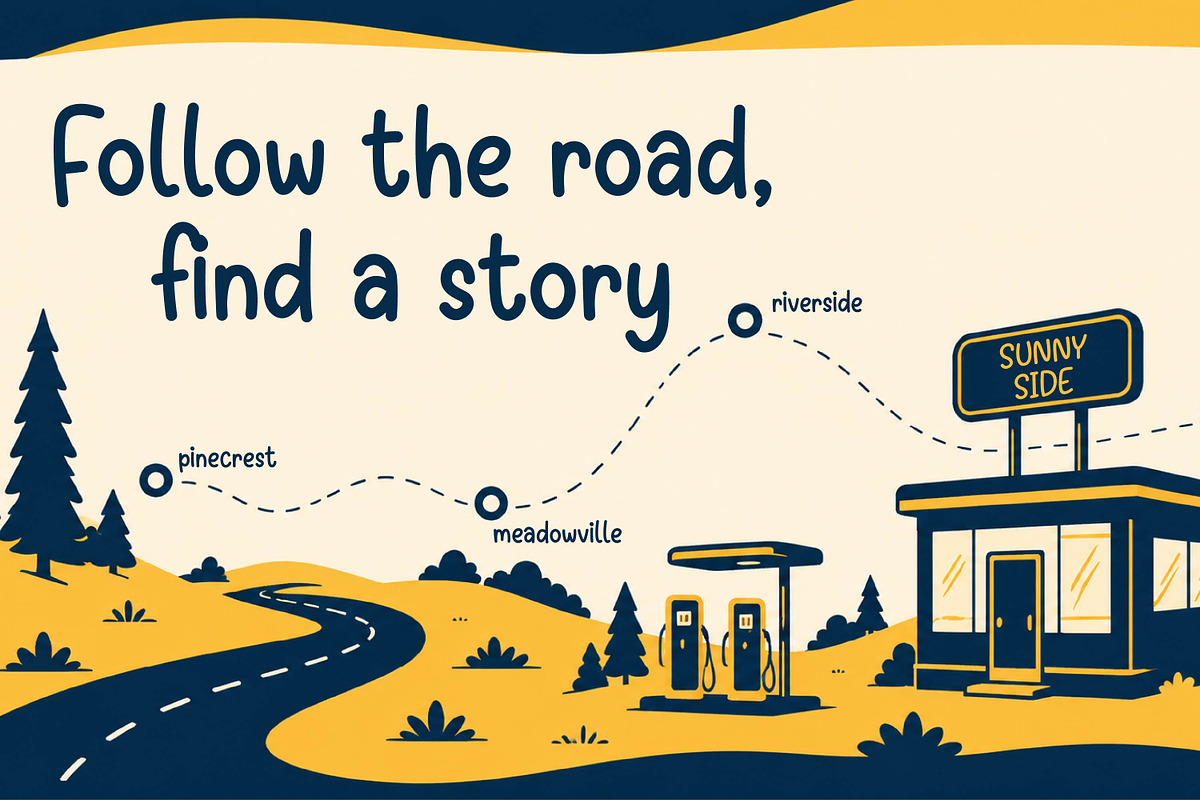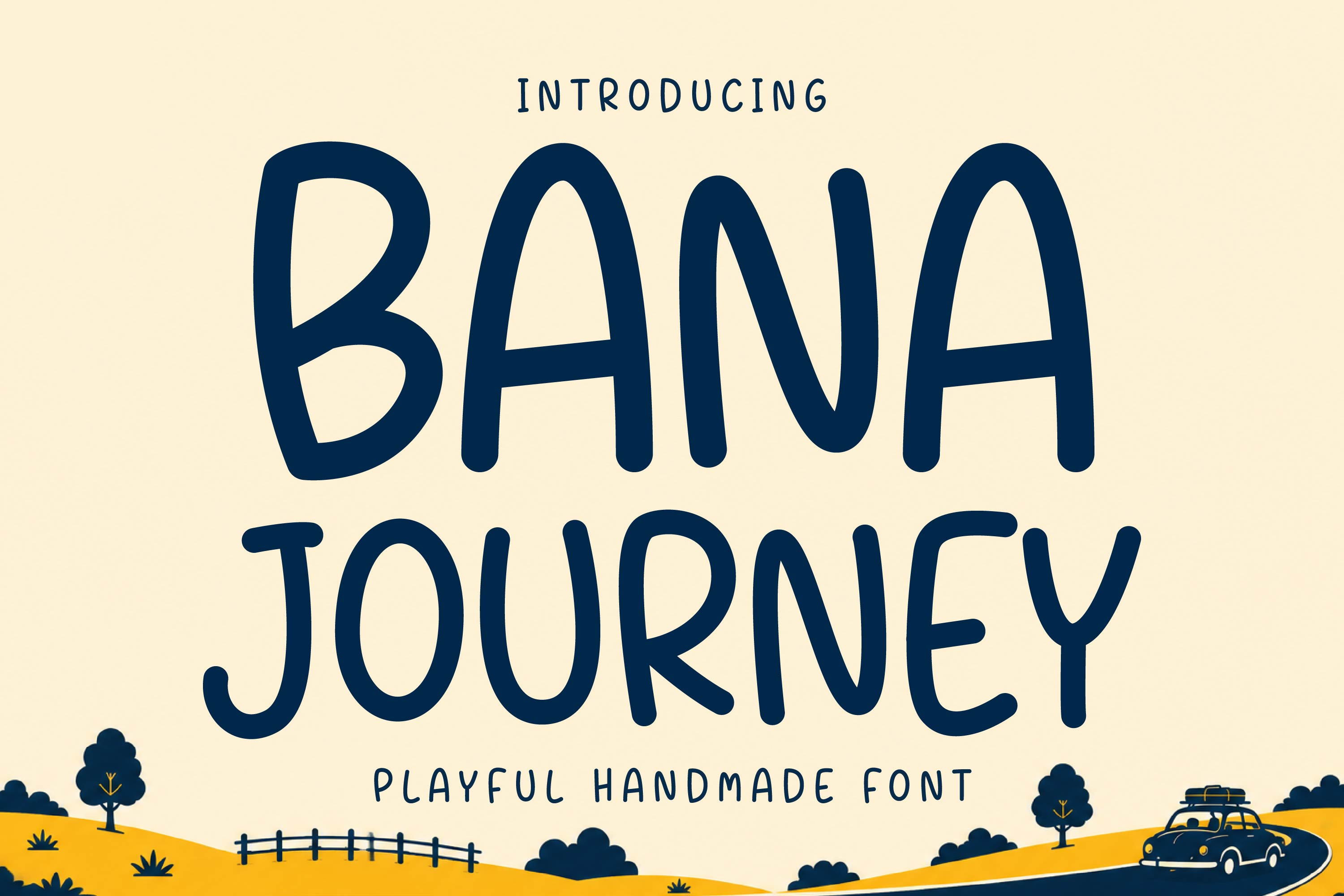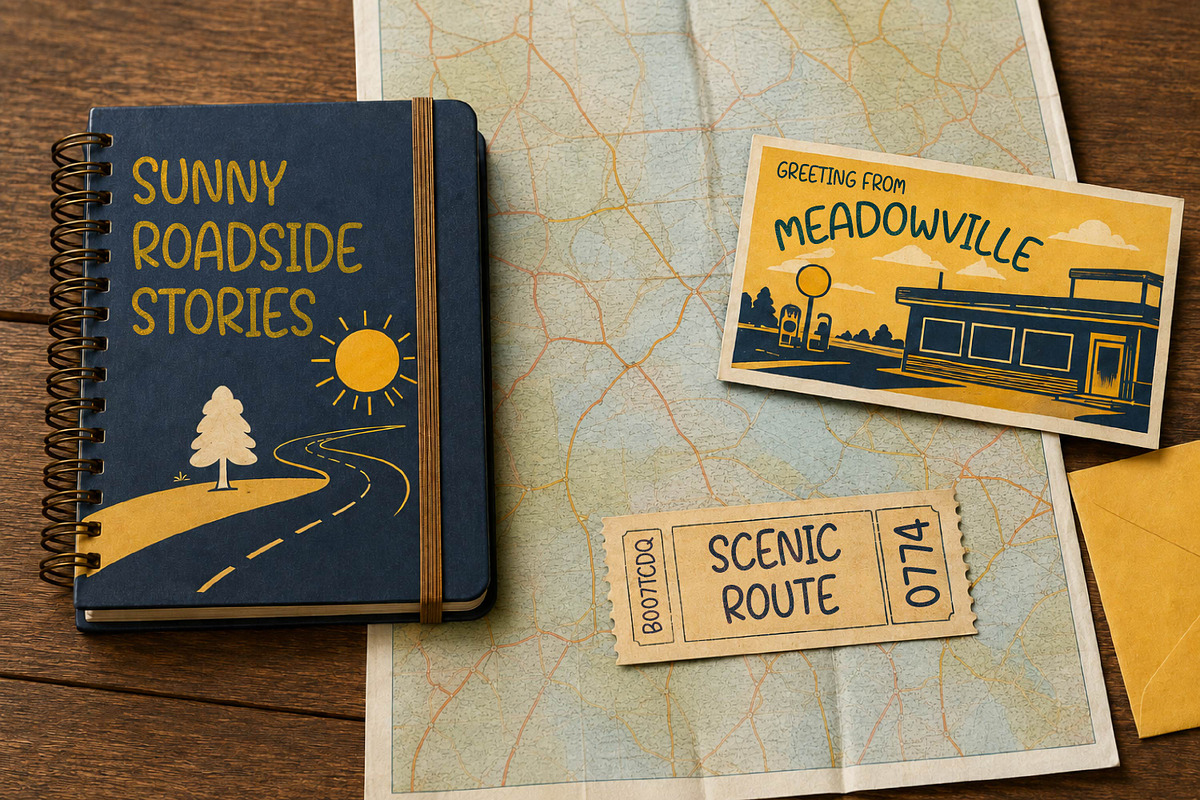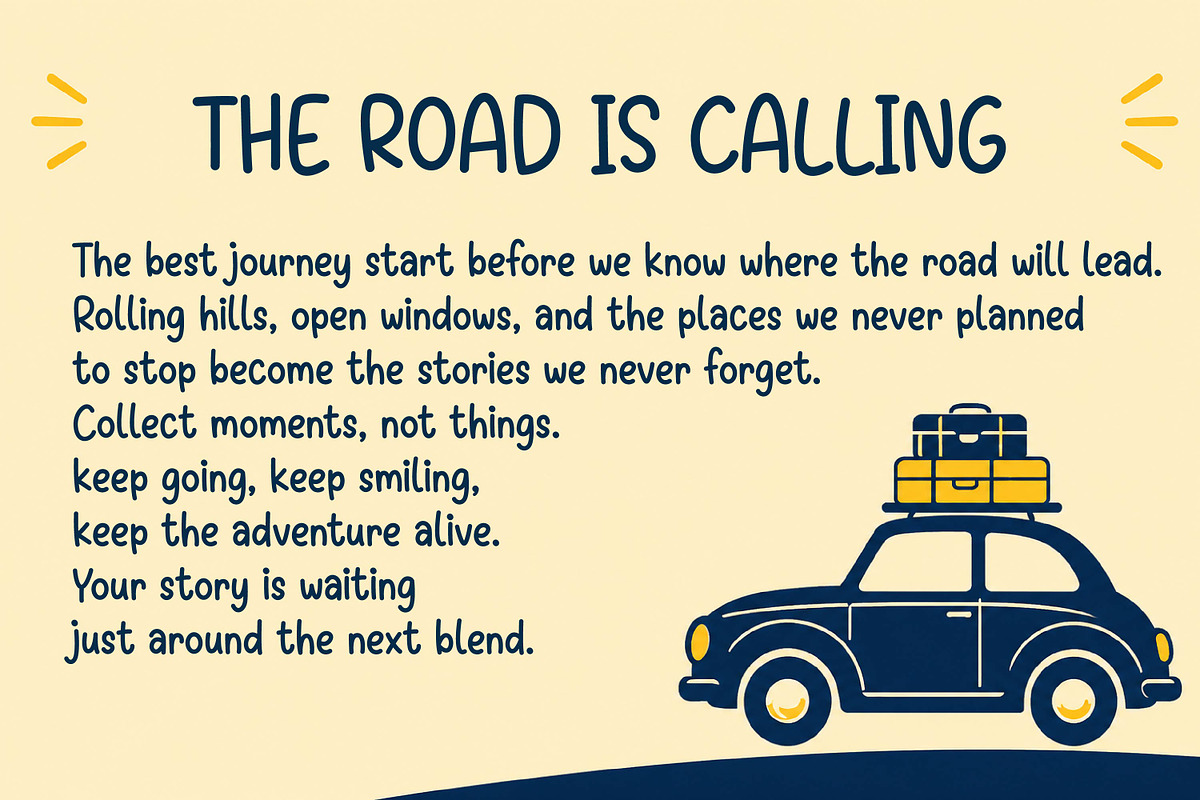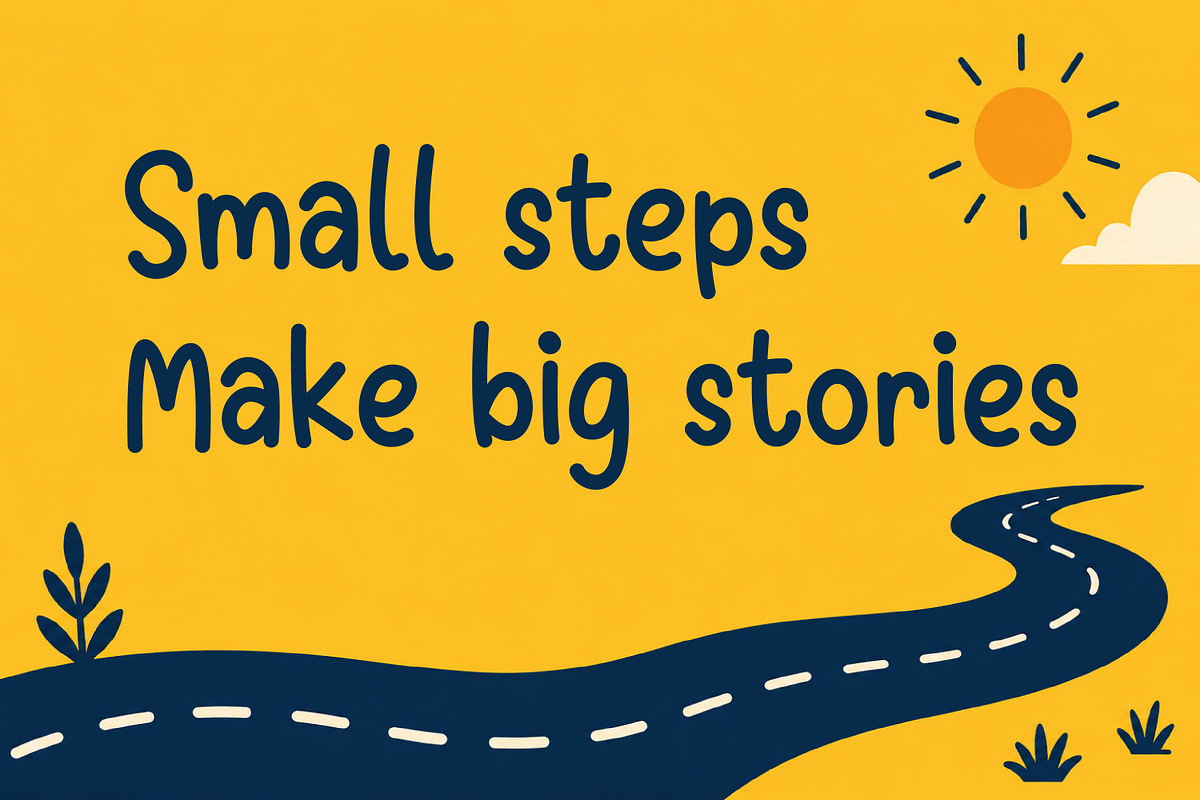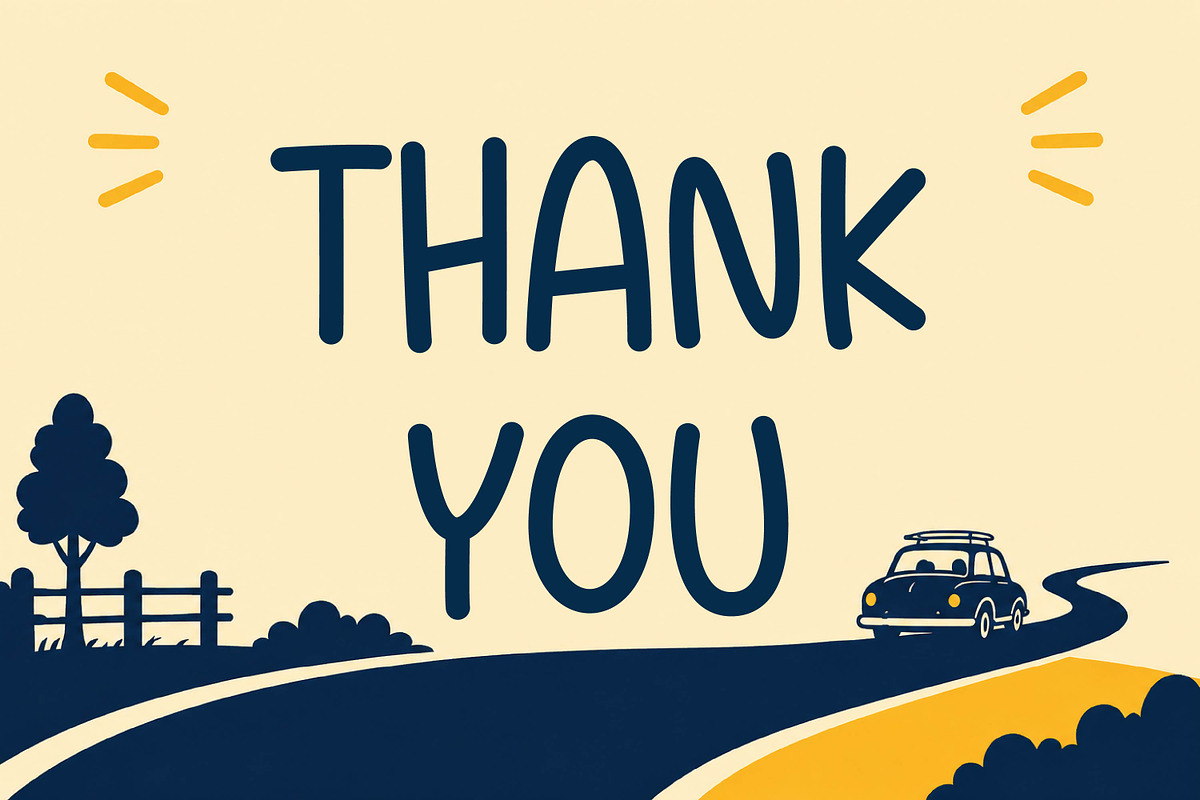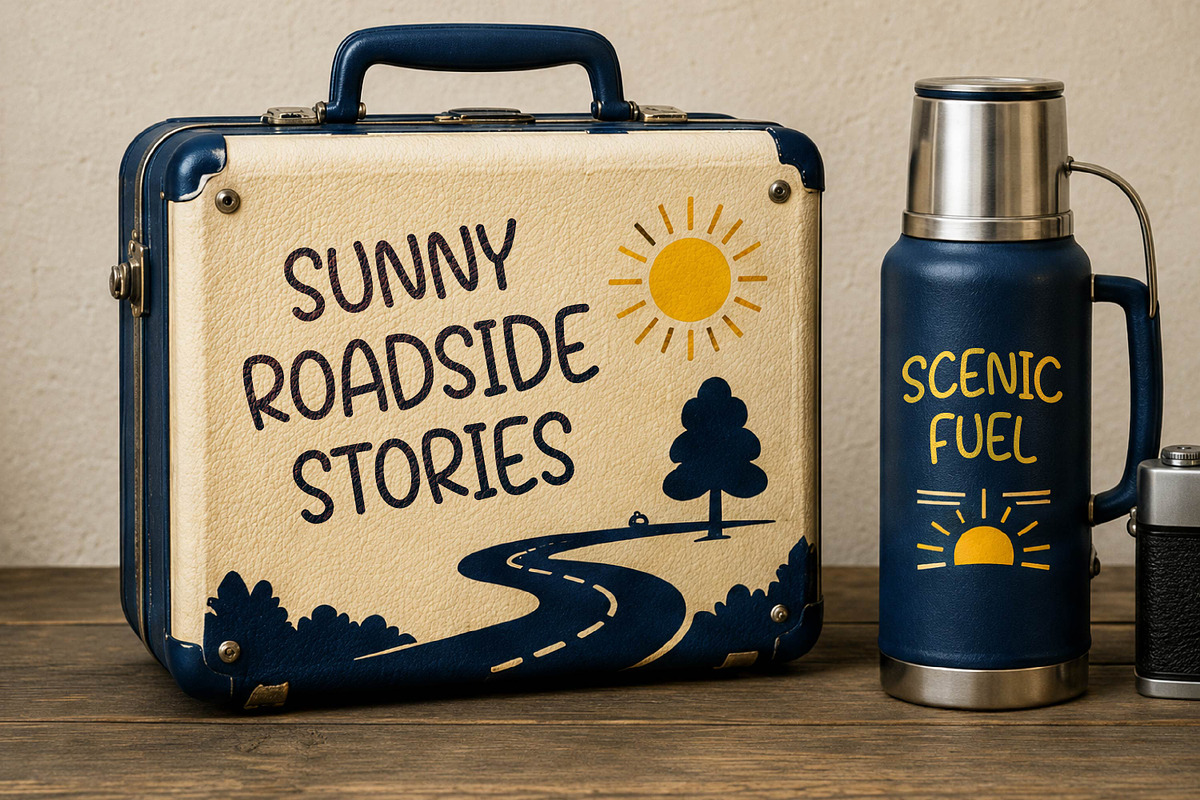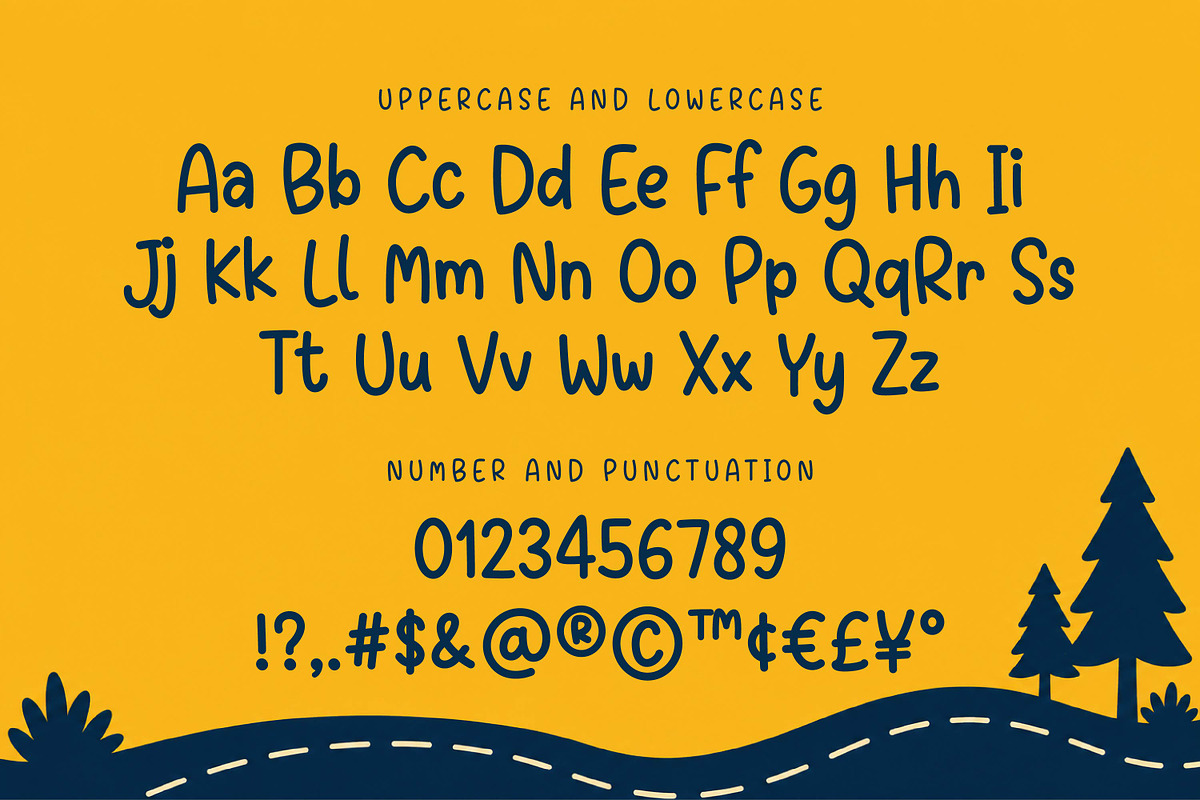
Bana Journey - Playful Handmade Font
Bana Journey is a playful handmade font with tall, friendly letterforms and a relaxed hand-drawn personality. Perfect for travel designs, children’s projects, posters, branding, packaging, storybooks, invitations, and creative projects that need a warm and adventurous touch.